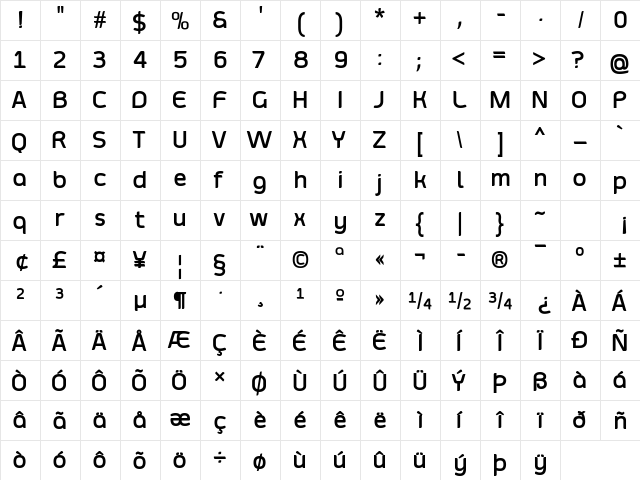
Smoolthan Bold
| Designer | Situjuh Nazara |
Design Context for Smoolthan Typeface
Smoolthan is a composed and adaptable typeface that performs quietly and consistently across a wide range of design contexts. Its bold stroke weight gives it real presence on the page.